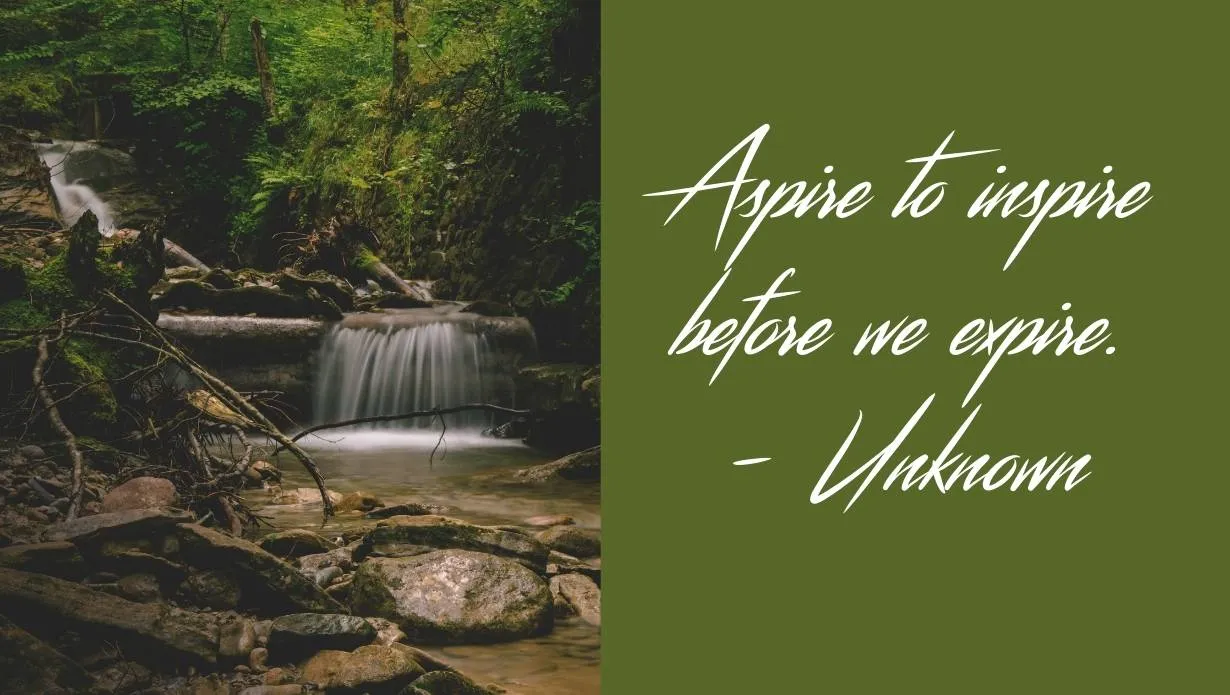
Welcome, today we will introduce to you the best typeface style. This typeface name is Streamster Typeface Font. It is a member of a Script typeface family. This elegant and outstanding typeface was designed by a famous designer named Youssef Habchi.
This typeface gained popularity in a very short time. This typeface look is very stylish and attractive in designs. This typeface has a very beautiful texture look appearance. A similar font of this typeface is Sacramento Font.